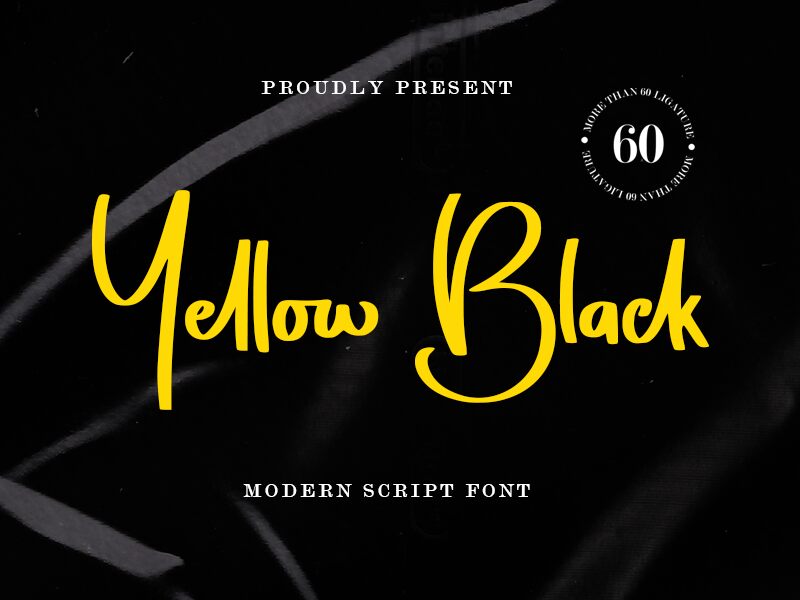
Yellow Black, designed by Alif Ryan Zulfikar, is a semi-light handwritten font that exudes charm and personality. With its fluid, coherent strokes and an organic feel, this font captures the essence of personal touch in every character. Its aesthetic appeal lies in the balance between casualness and elegance, making it versatile for various design needs.
The playful yet sophisticated style of Yellow Black is ideal for projects that require a humanistic touch such as branding materials, invitations, product packaging, and creative advertising. The handwritten quality adds authenticity to messages while maintaining legibility-a testament to Zulfikar's skillful design approach.
Whether you're crafting a heartfelt greeting card or sprucing up social media graphics, Yellow Black brings warmth and originality to the table. This font's ability to convey both simplicity and artistry makes it an adaptable asset for designers aiming to inject a dose of individuality into their work.